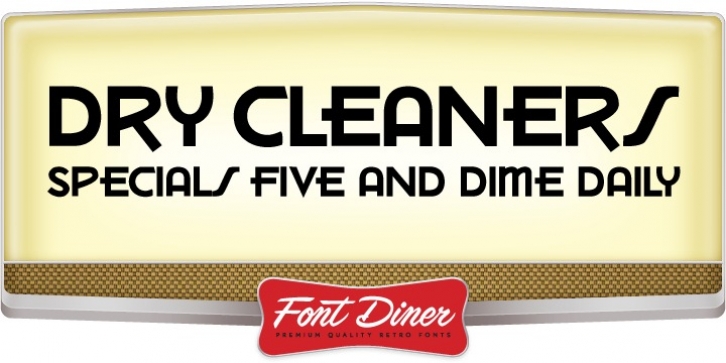
Dry Cleaners downloadDesigner: Stuart Sandler
Publisher: Font Diner
Don't spare the starch for this upright sold Art Deco inspired sans-serif that is sure to leave your collar crisp.